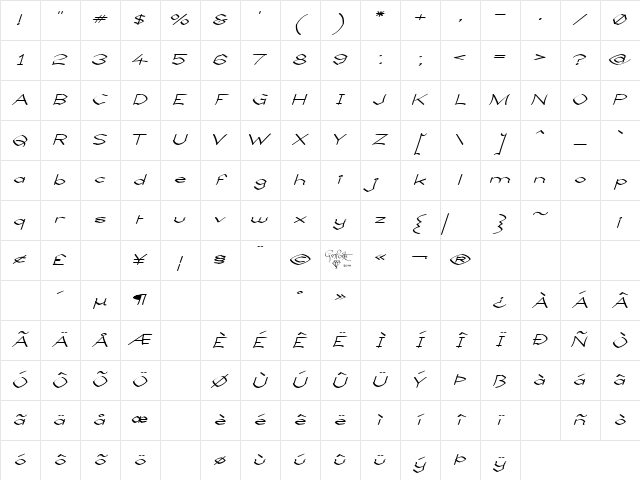
Complete Llynfyrch Fwyrrdynn Regular glyph index. Displaying only characters natively supported by Llynfyrch Fwyrrdynn Regular font.
Llynfyrch Fwyrrdynn is a composed and adaptable typeface that performs quietly and consistently across a wide range of design contexts.